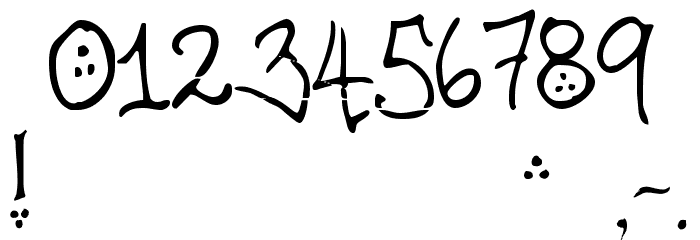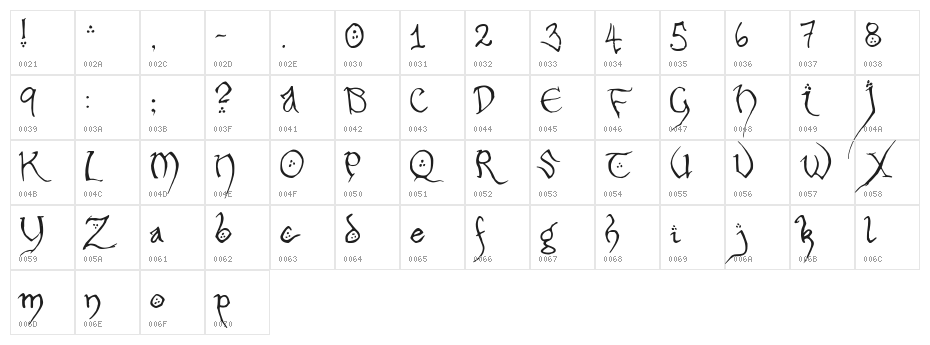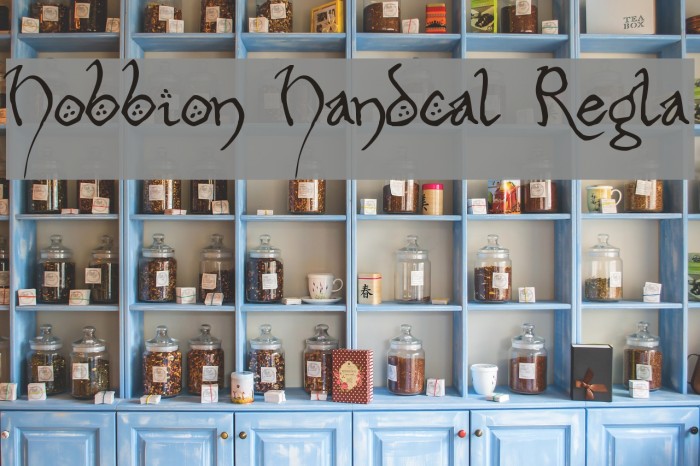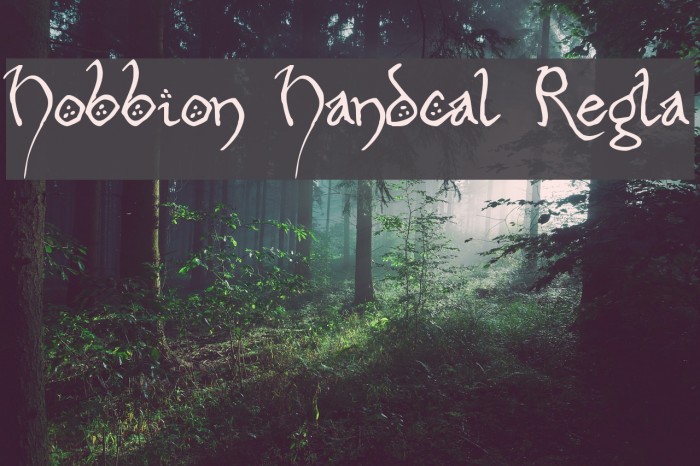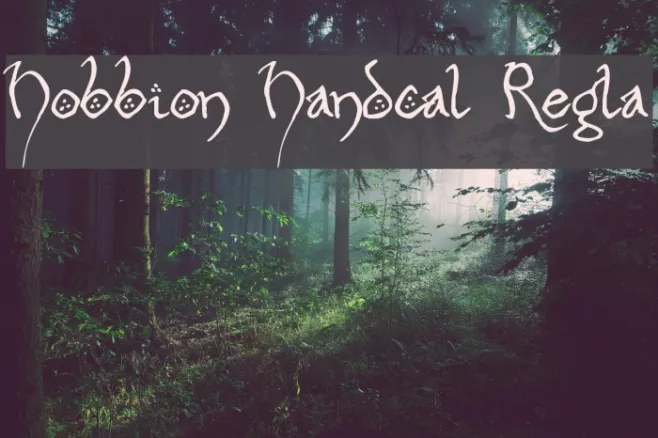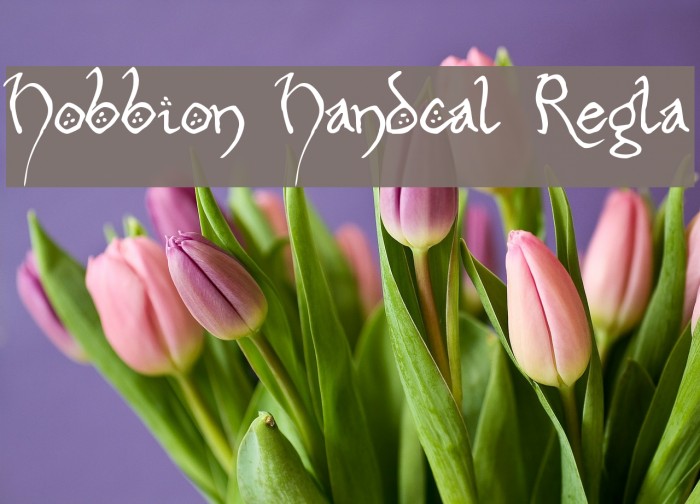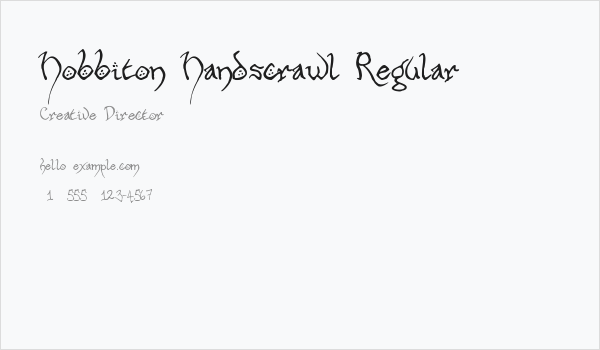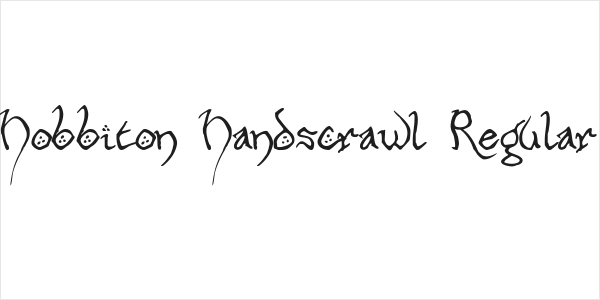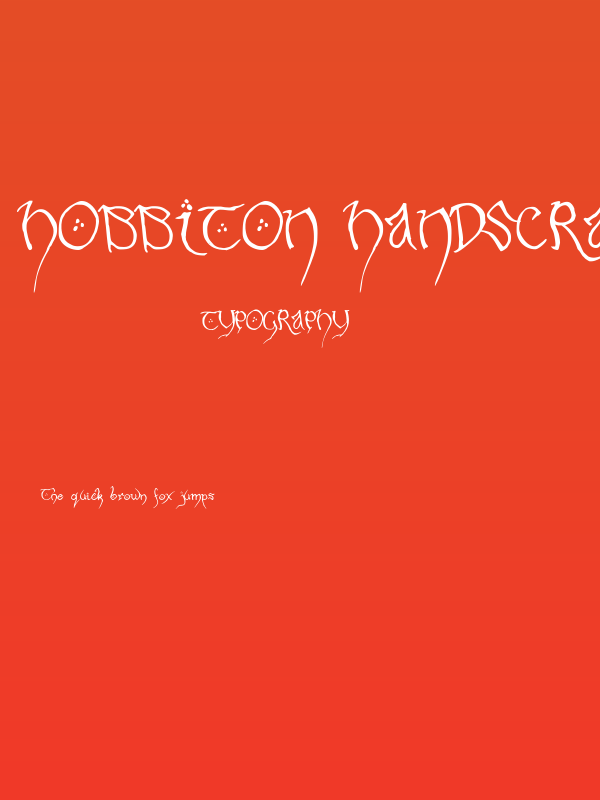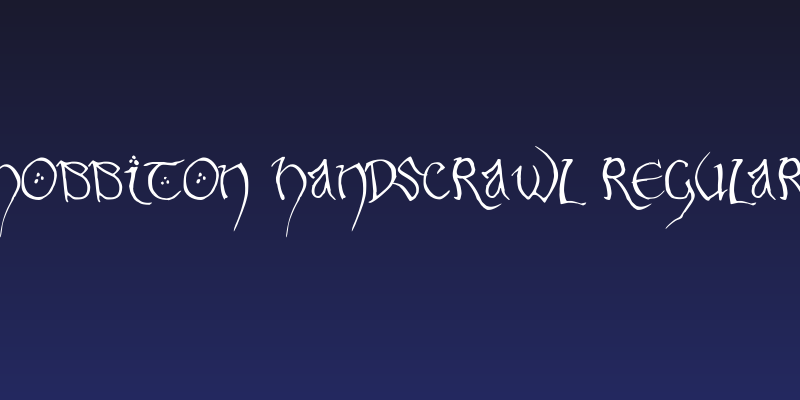
Hobbiton Handscrawl Regular Font
Hobbiton Handscrawl Regular Description
This font exudes a whimsical and fantastical charm, reminiscent of handwritten scripts from a mythical realm. The characters are adorned with playful flourishes and unique embellishments, giving each letter a distinct personality. The uppercase letters are tall and elegant, while the lowercase letters maintain a consistent flow with a slightly more compact form. The numbers are quirky and maintain the same enchanting style. Special characters are creatively integrated, adding to the overall magical feel. This font is perfect for projects that aim to capture a sense of fantasy and adventure.
| Proposed Projects | Ideal for fantasy-themed books, movie posters, game titles, and creative invitations. |